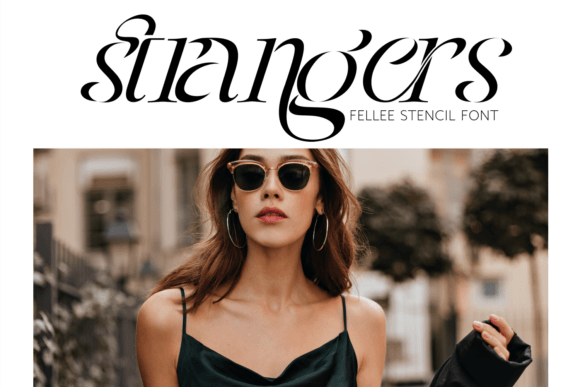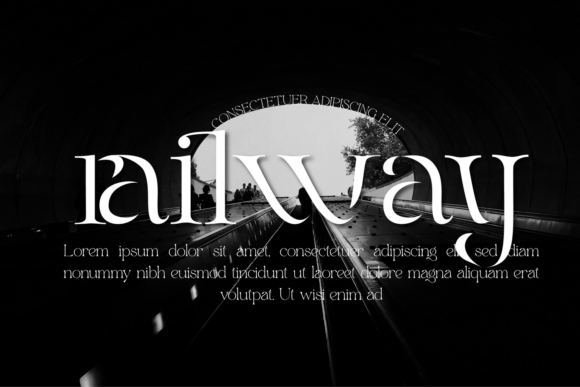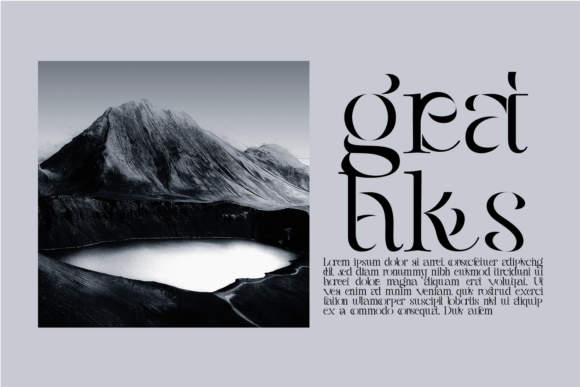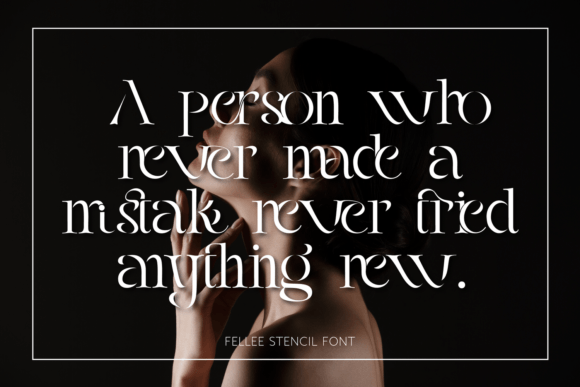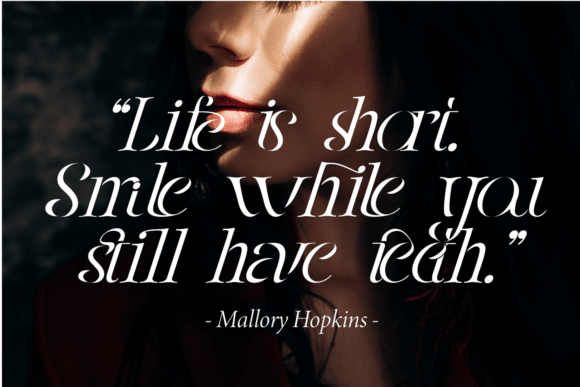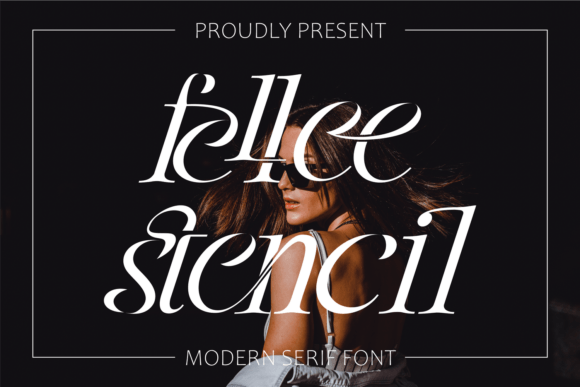
The Fellee Stencil Font: Elevate Your Designs with Elegance and Sophistication
Have you ever been in the middle of a design project, and suddenly, you’re stuck on finding the perfect font? I recall a recent experience where a client’s request for an elegant and luxurious logo had me scouring through countless font libraries. That’s when I stumbled upon the Fellee Stencil Font, and it completely transformed my design. In this article, I’ll share my journey with this beautiful font, its features, and how you can make the most of it in your designs.
An Honest Review of Fellee Stencil Font
- ✨ Elegant stencil style with a serif font concept that exudes luxury and sophistication
- ✅ Unique and irregular dynamic shapes that add a touch of personality to any design
- ✅ Perfect for a wide range of applications, from logos and editorial designs to fashion brands and home decoration
- ✅ Impressively regular and unique, making it stand out from other stencil fonts
While the Fellee Stencil Font is incredibly versatile, there are a few things to keep in mind:
- ⚠️ Some users may find the font’s stencil style too ornate or busy for certain designs
- 🤔 The font’s uniqueness may not be suitable for very formal or traditional designs
A Practical Guide to Using Fellee Stencil Font
- Experiment with the font’s OpenType features, such as stylistic alternates, to add more personality to your design
- Explore the font’s glyphs and OpenType features to add more depth to your design
The Backstory of Fellee Stencil Font
The Fellee Stencil Font was designed with the intention of creating a unique and elegant stencil font that would add a touch of luxury to any design. The designer aimed to create a font that would be both regular and irregular, making it stand out from other stencil fonts. The result is a font that is both sophisticated and eye-catching.
Q: What type of designs is the Fellee Stencil Font best suited for?
A: The Fellee Stencil Font is perfect for elegant and luxurious designs, such as logos, editorial designs, fashion brands, cosmetic brands, and home decoration.
Q: Is the Fellee Stencil Font available in different weights or styles?
A: The Fellee Stencil Font may come in different weights or styles, depending on the version you have. Please check the font documentation for more information.